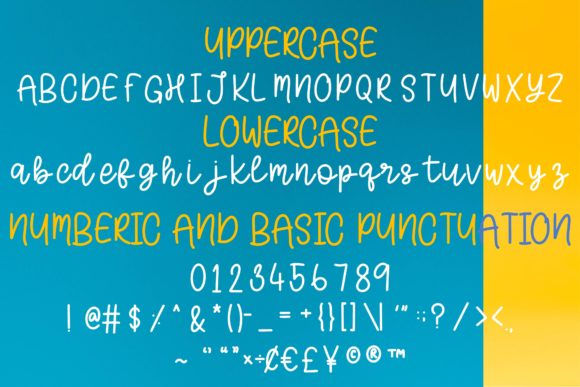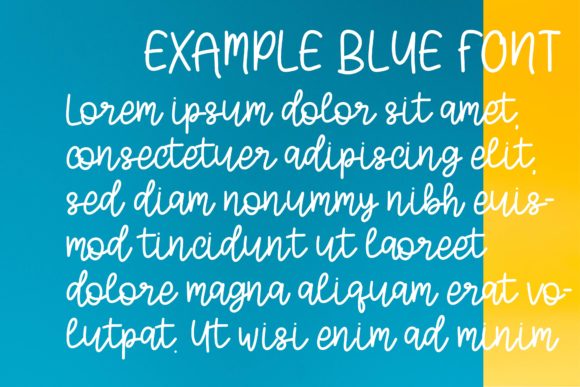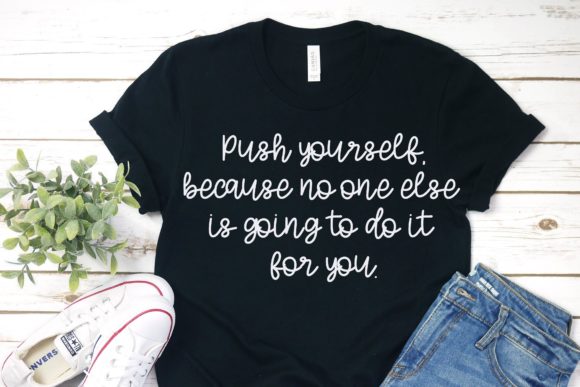
Introducing Blue Font: Elevate Your Designs with Timeless Elegance
Are you a designer or crafter looking for a font that exudes sophistication and elegance? Look no further than Blue Font, a magical display font that combines the best of timeless elegance and authentic calligraphy. In this article, we’ll dive into the world of Blue Font and explore how it can elevate your design projects to new heights.
The Story Behind Blue Font
Blue Font is more than just a font – it’s a carefully crafted display font that boasts a touch of elegance and sophistication. Its unique blend of classic and modern elements makes it the perfect choice for a wide range of design projects, from branding and headings to wedding designs and invitations.
What Makes Blue Font So Special?
So, what sets Blue Font apart from other fonts on the market? Here are just a few reasons why Blue Font is a cut above the rest:
- Timeless Elegance: Blue Font’s classic design ensures that it will never go out of style. Whether you’re creating a logo, label, or invitation, Blue Font’s elegant curves and lines will add a touch of sophistication to your design.
- Authentic Calligraphy: Blue Font’s authentic calligraphy elements give it a personal, hand-crafted feel that’s perfect for wedding designs, signatures, and other special projects.
- Versatility: Blue Font is incredibly versatile, making it suitable for a wide range of design projects, including branding, headings, labels, and more.
How to Use Blue Font in Your Designs
Blue Font is incredibly easy to use, even for those who are new to design. Here are a few tips for incorporating Blue Font into your projects:
- Pair it with Other Fonts: Blue Font pairs beautifully with other fonts, making it easy to create stunning contrast and visual interest in your designs.
- Experiment with Colors: Blue Font looks amazing in a range of colors, from rich jewel tones to soft pastels. Experiment with different colors to find the perfect look for your design.
- Use it for Headings and Titles: Blue Font’s elegant design makes it perfect for headings and titles. Use it to add a touch of sophistication to your designs and draw attention to important information.
Blue Font is a must-have for designers and crafters who want to take their designs to the next level. Whether you’re creating:
- Branding Materials: Use Blue Font to create stunning logos, business cards, and letterheads that exude elegance and sophistication.
- Wedding Designs: Blue Font is perfect for wedding invitations, programs, and other special designs that require a touch of elegance.
- Signatures and Labels: Use Blue Font to create beautiful signatures and labels that add a personal touch to your designs.
| Font Name | Blue Font |
| Author | KtwoP |
In conclusion, Blue Font is a magical display font that offers a unique blend of timeless elegance and authentic calligraphy. Its versatility, elegance, and sophistication make it the perfect choice for a wide range of design projects. Whether you’re a designer or crafter, Blue Font is sure to become a staple in your design toolkit. So why wait? Download Blue Font today and start elevating your designs to new heights!